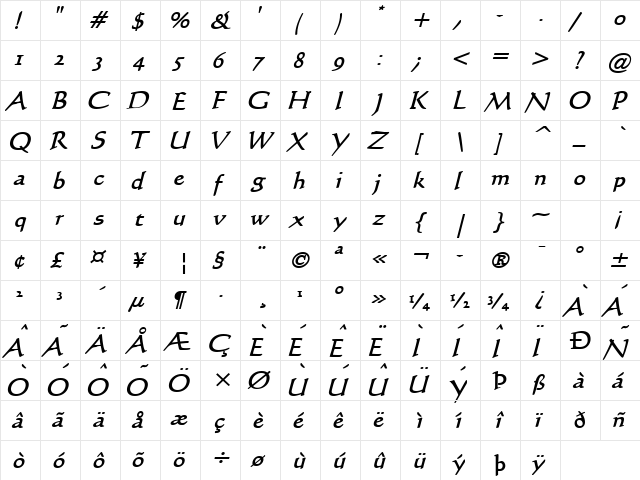
Calli 109 BoldItalic
Design Context for Calli 109 Typeface
Calli 109 takes a measured approach to typography — its balanced proportions and neutral character make it a reliable workhorse for both digital and print work. The slanted form adds forward momentum and visual energy. The heavy weight commands attention and anchors typographic hierarchies.